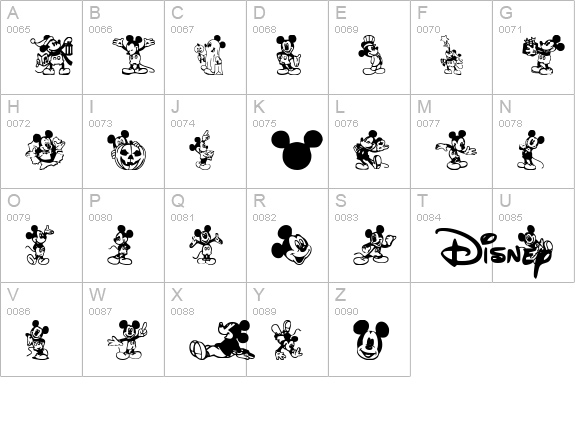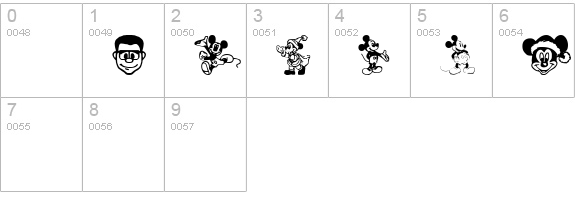
Mickey Mousebats Font Details
Introducing Mickey Mousebats font - a whimsical and playful typeface inspired by everyone's favorite animated character, Mickey Mouse. This delightful font features charming mouse ears and iconic silhouettes that add a touch of magic to any project. Perfect for adding a touch of fun to invitations, greeting cards, posters, and more, Mickey Mousebats font is sure to bring a smile to your audience's faces. Best of all, Mickey Mousebats font is completely free to download at FontsMarket.com. So why wait? Bring a sprinkle of Disney magic to your designs with this delightful and enchanting font today!